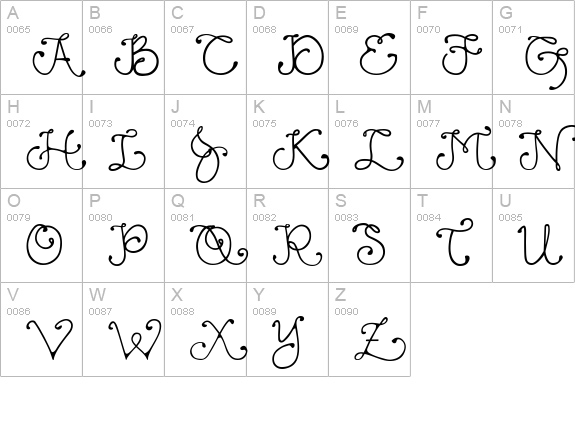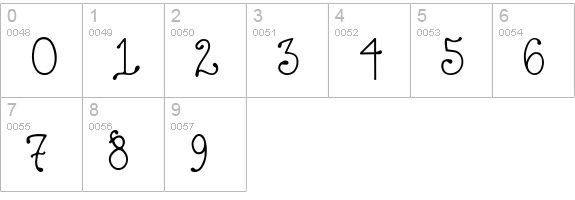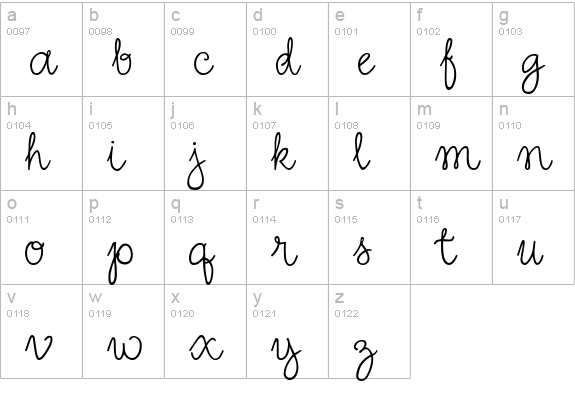
DJ Fancy Font Details
DJ Fancy font is a stylish and modern typeface that is perfect for adding a touch of sophistication to your designs. With its elegant curves and bold lines, this font is sure to make a statement. Whether you're working on a logo, branding materials, or invitations, DJ Fancy font will elevate your project to the next level. The best part? DJ Fancy font is completely free to download at FontsMarket.com. You can easily access this beautiful font and start using it in your projects right away. Don't miss out on the opportunity to add a touch of class to your designs with DJ Fancy font. Download it now and let your creativity shine!